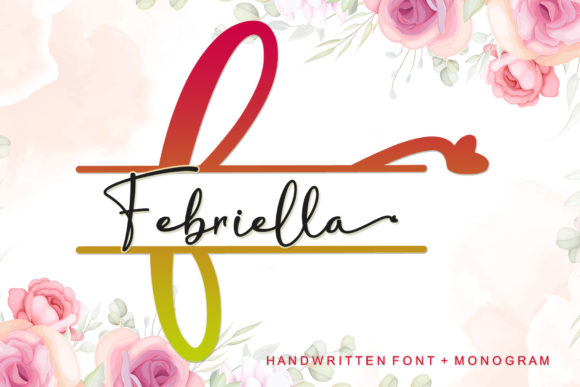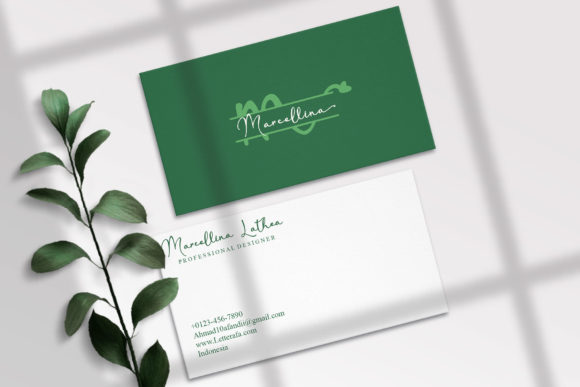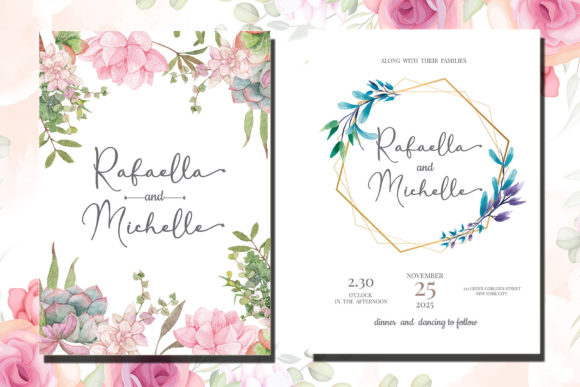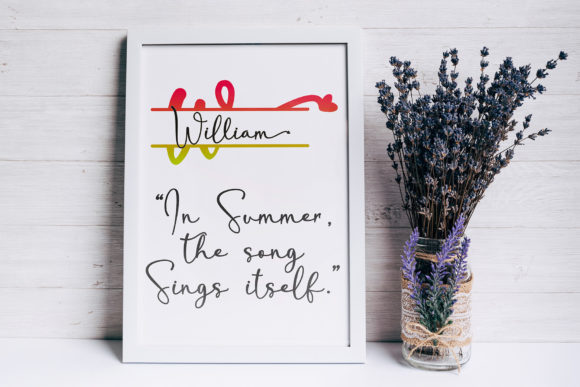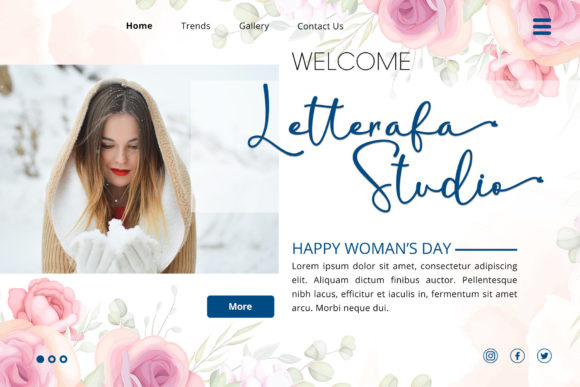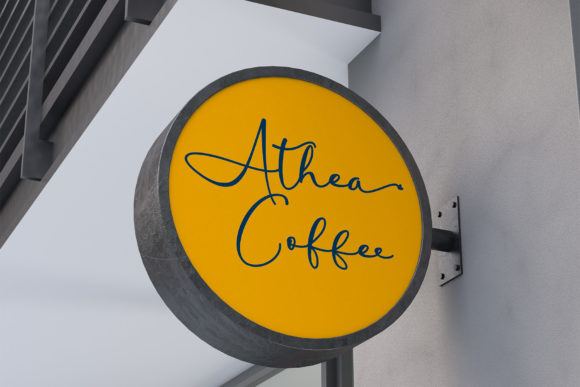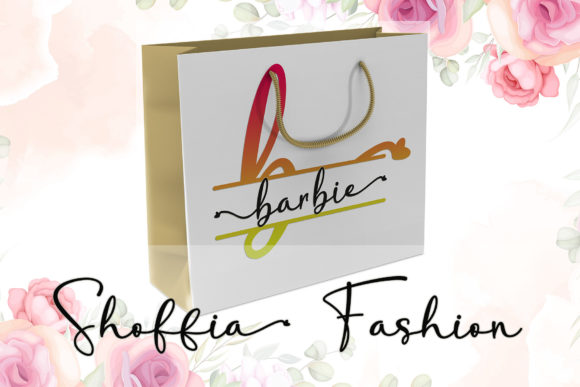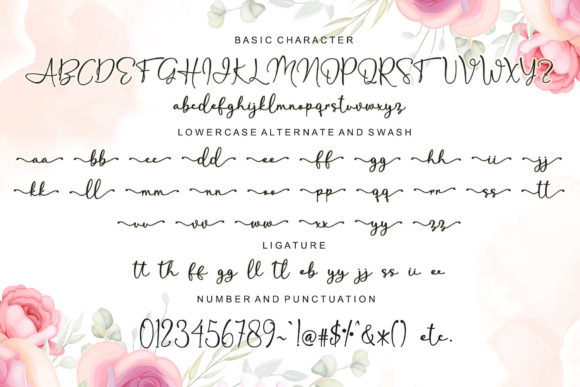
Febriella Font
Febriella is a lovely script font featuring charming, playful characters that seem to dance along the baseline. It will add a luxury spark to any design project that you wish to create! This font is PUA encoded which means you can access all of the glyphs and swashes with ease!